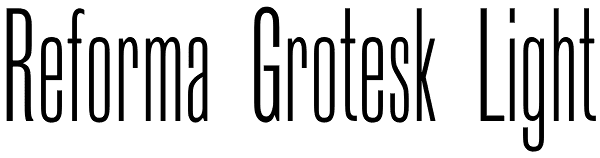
Reforma Grotesk
PT Reforma Grotesk was designed for ParaType in 1999 by Albert Kapitonov based on the letterforms of Russian pre-revolutionary hand composition typefaces: Uzky Tonky Grotesk («Condensed Thin Sans»), Poluzhirny Knizhny Grotesk («Semibold Book Sans...